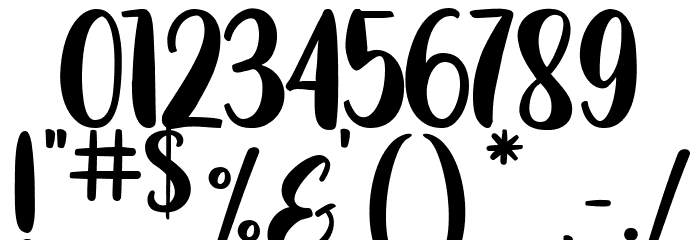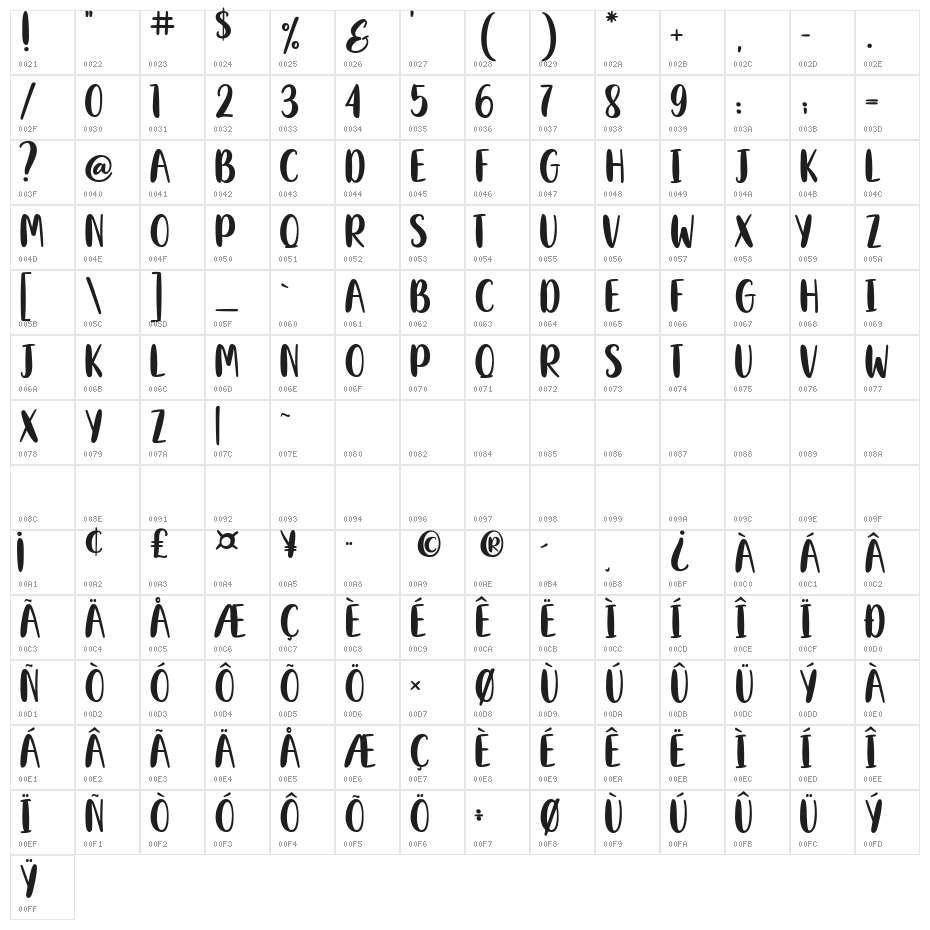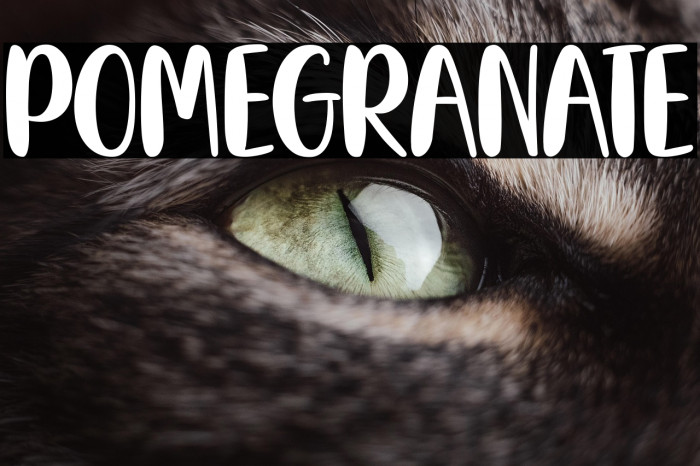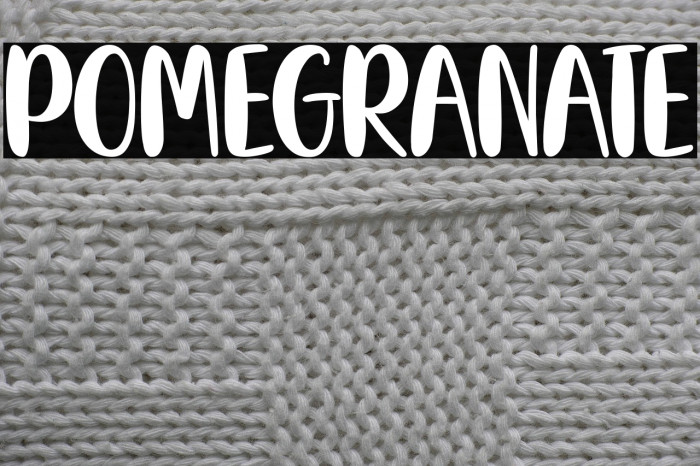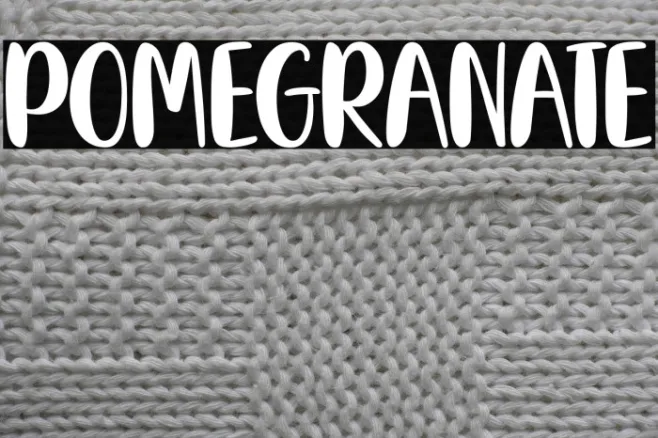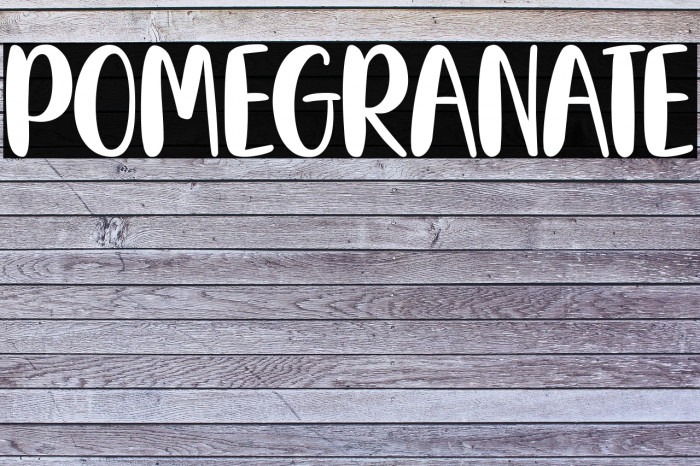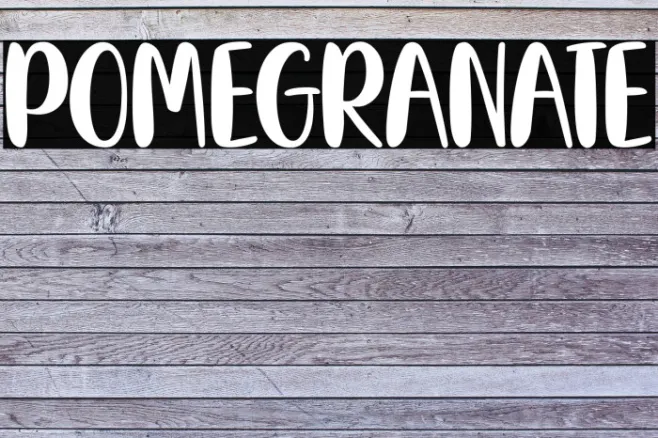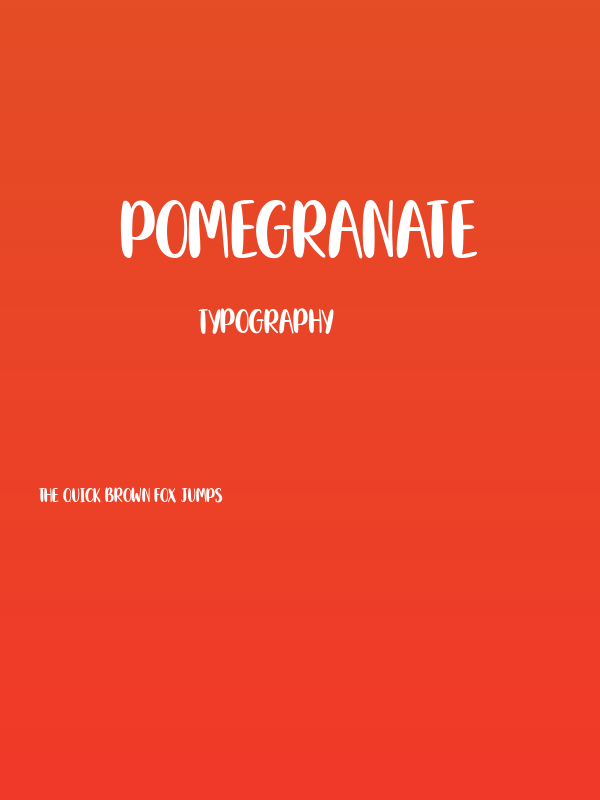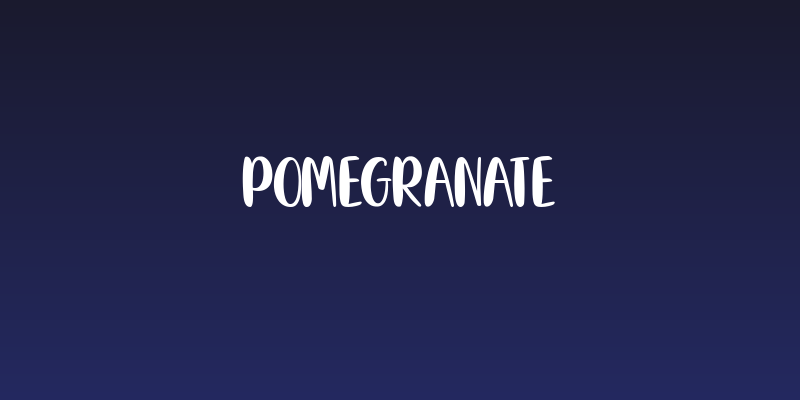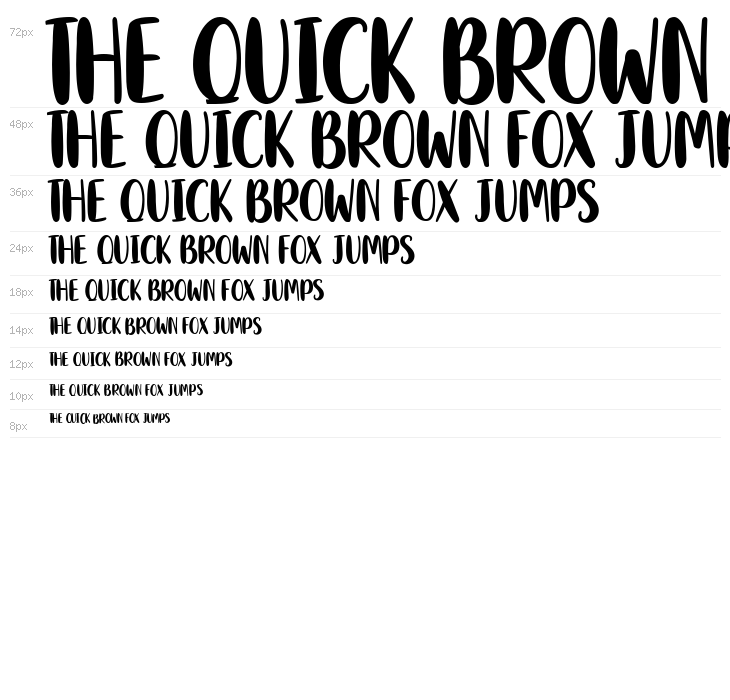
Pomegranate Font
Pomegranate Description
This playful and bold font features a handwritten style with a modern twist. The letters are characterized by their thick, rounded strokes and slightly irregular shapes, giving them a lively and dynamic appearance. The uppercase and lowercase letters maintain a consistent style, with the uppercase being slightly taller and more pronounced. The numbers and special characters follow the same design principles, ensuring a cohesive look across all elements. This font's unique personality makes it perfect for projects that require a touch of creativity and fun.
| Proposed Projects | Ideal for greeting cards, children's books, playful branding, and social media graphics. |